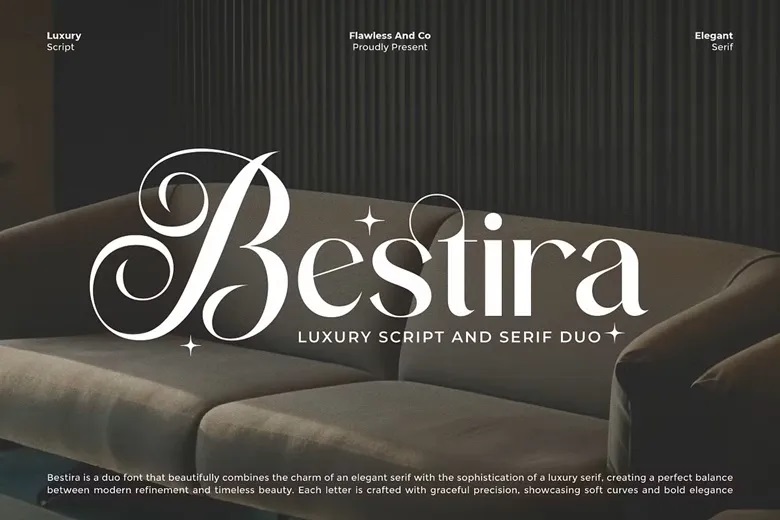
Bestira Font
Bestira is an elegant duo font that perfectly combines the elegance of an elegant serif and the sophistication of a refined script. Designed with a timeless sense of charm and modern luxury, Bestira achieves a perfect balance between soft curves and confident structure. Each character is made carefully and with high attention to detail – delivering high contrast, fluid strokes and graceful precision.
Whether used together or separately, serif and script style of Bestira adds a touch of effortless refinement and beauty to any design. Perfect for designers who want beauty, sophistication and visual impact that endures.
Bestira Font Duo